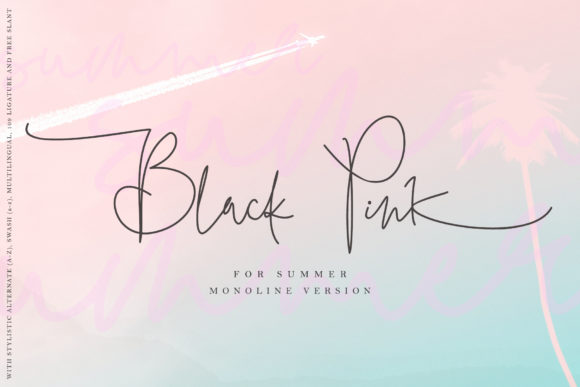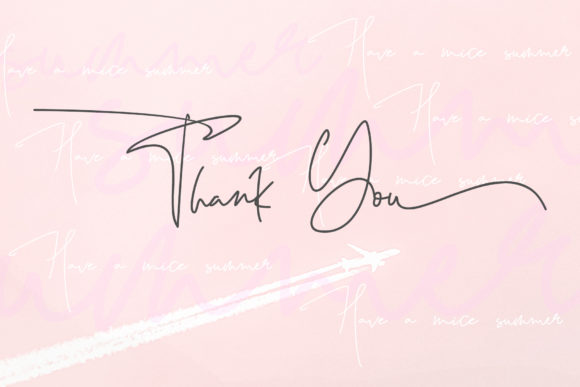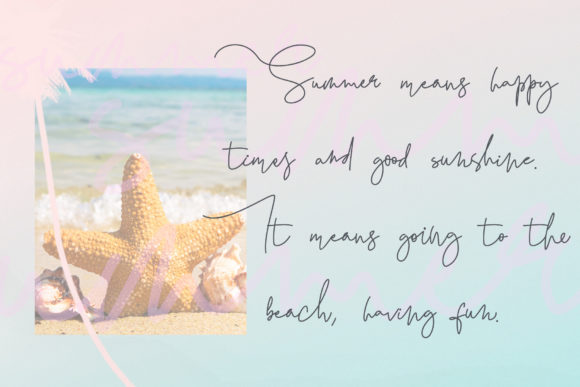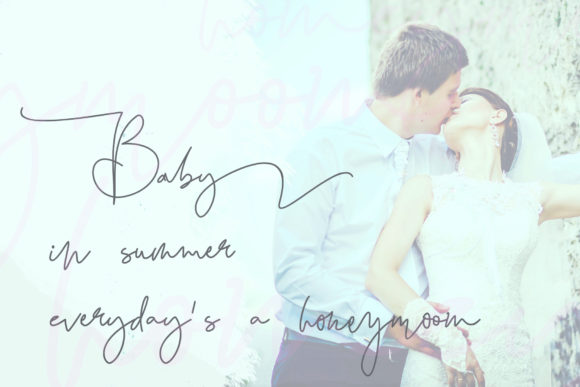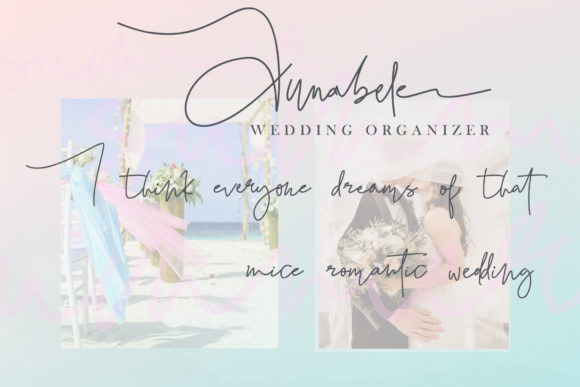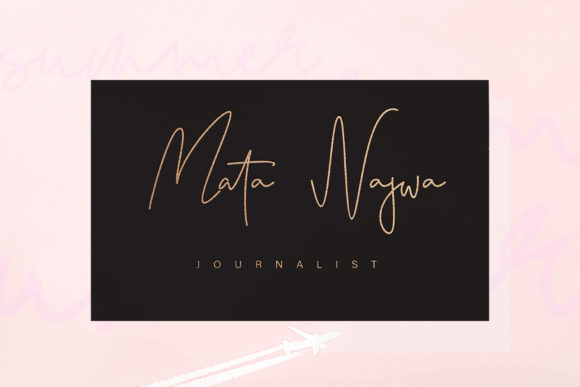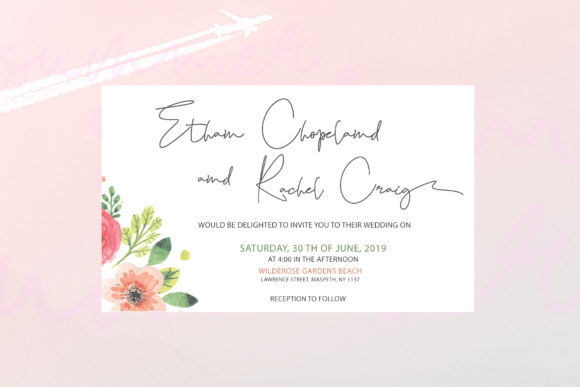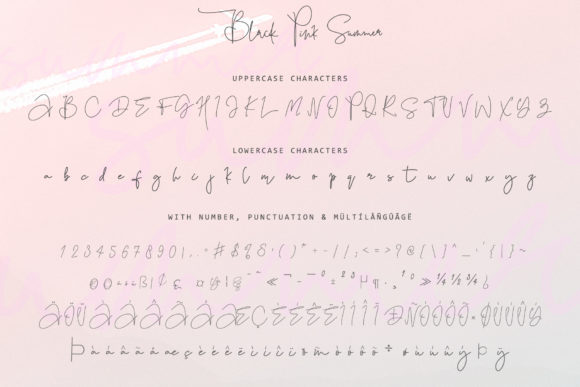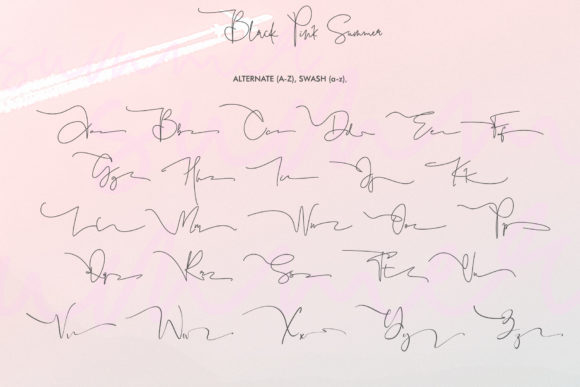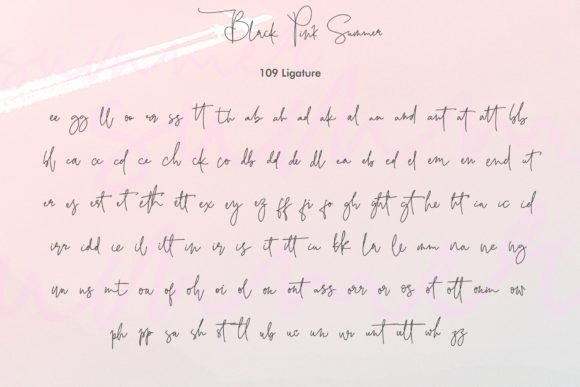
Black Pink Summer Font
About Black Pink Summer Font
Black Pink Summer is the monoline version of the beautiful Black Pink signature. Specially created for summer, this light and stunning script is a true standout!